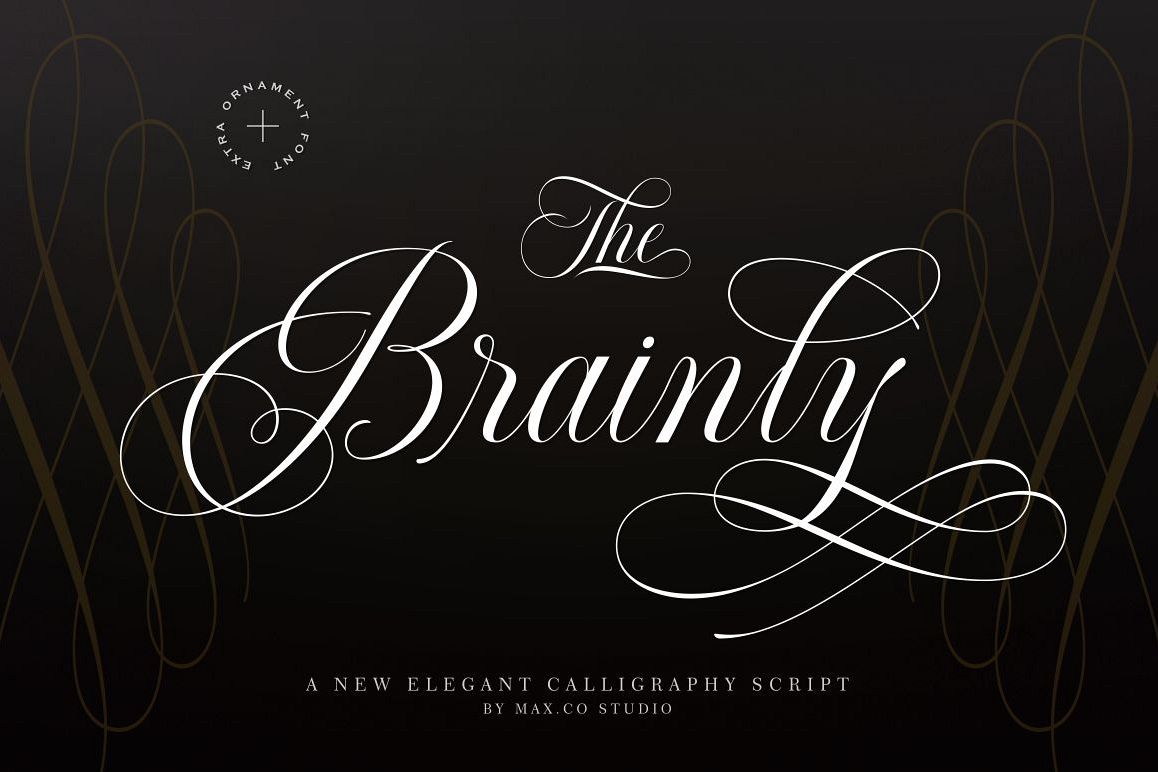
Brainly Script- With Ornament
Brainly Script
Brainly Script is the font of choice for writing things that go beyond words. This font type is designed with high detail to deliver stylish elegance. So, it can be said, the character of the change is very beautiful, a kind of classical decorative copper script.
Brainly Script presents alternative variants of most letters, binders, and many calligraphy tips, ideal for elegant labels, high-end packaging, stationery, and compositions for certain brands, beautiful titling, verses, letters and short texts, which are intended to be read only with the eyes or intended to whisper into someone's ear.
Brainly Script has 792+ glyphs and 534 alternative characters, including various language support. With the OpenType feature with an alternative style and elegant binder. The OpenType feature does not function automatically, but you can access it manually and for the best results needed for your creativity in combining these Glyph variations. And also a touch of ornament makes this font look elegant.